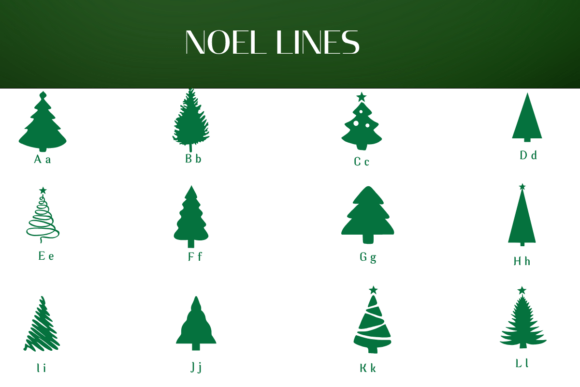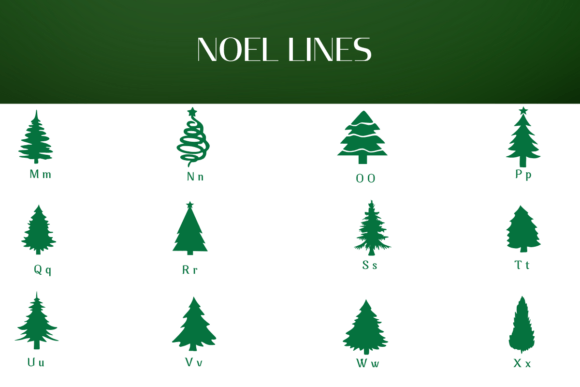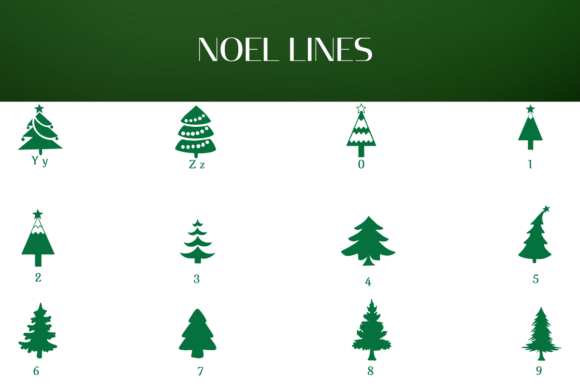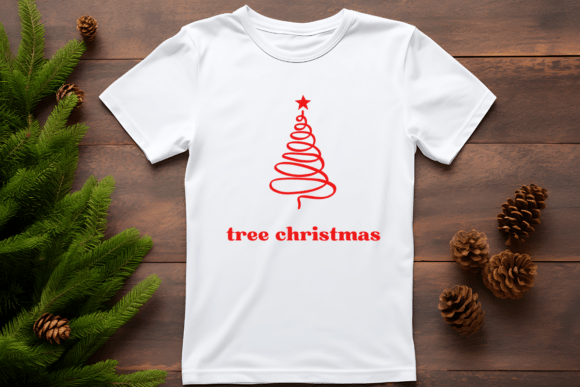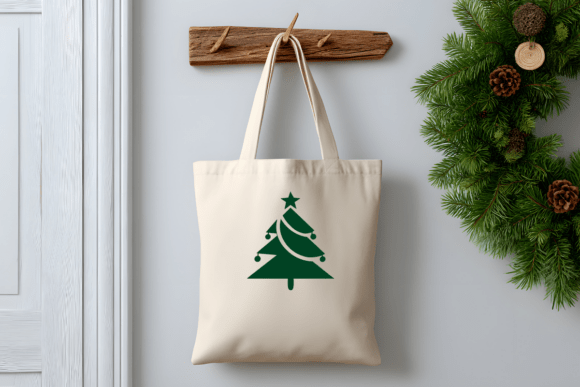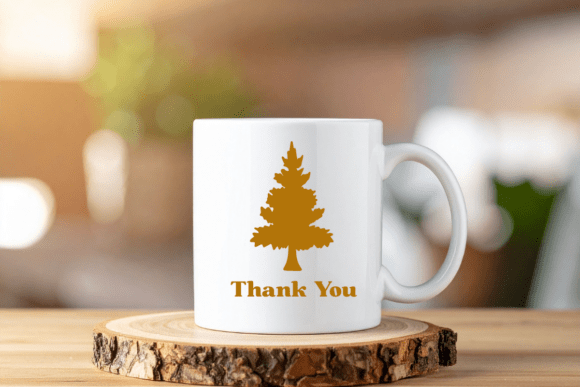
Deck the Halls with a Touch of Whimsy
As you sit down to craft your holiday cards or jot down your New Year’s resolutions, do you find yourself searching for the perfect font to capture the festive spirit? Perhaps you’re a designer looking to add a touch of whimsy to your latest project. Whatever your creative pursuit, the Christmas Pine Font is here to inspire you.
This delightful dingbats font is perfect for taking notes, writing a diary, or making greeting cards. But its uses don’t stop there – you can also use it to create banners, content, mugs, cards, shirts, stationery, social media posts, and more!
As a designer, you know that the right font can make all the difference. The Christmas Pine Font is a valuable addition to your toolkit, offering a unique and playful way to express your creativity and connect with your audience.
Christmas Pine Font Key Features
- Font Family: Christmas Pine is a festive and playful font designed to evoke the feeling of Christmas trees.
- Character Count: This font contains a wide range of characters, including uppercase and lowercase letters, numbers, and punctuation marks.
- Unique Characteristics: Features a unique, hand-drawn design with intricate details and ornaments that resemble Christmas pinecones and branches.
Designer Review: Christmas Pine Font
Overall, I’d say the Christmas Pine Font has some great qualities that make it a fun addition to your holiday design projects. ✨
- Unique blend of vintage and modern elements, giving it a charming, eclectic feel.
- Great for creating festive and inviting designs, perfect for holiday cards, gift tags, or advertisements.
- Font is highly customizable, allowing you to adjust the color, size, and style to fit your design needs.
- Includes a wide range of characters, including uppercase and lowercase letters, numbers, and symbols.
However, there are some limitations that might hold you back. ⚠️
- Some characters may not be as intricately designed as others, resulting in a slightly uneven look.
- The font may not be as suitable for formal or professional designs, as it has a more playful and whimsical feel.
Overall, I’d give the Christmas Pine Font 4 out of 5 stars. It’s a great addition to any holiday design project, but be aware of its limitations and use it accordingly.
To get the most out of the Christmas Pine Font, use it in conjunction with other festive graphics and elements, such as holly leaves, snowflakes, or candy canes.
– Holiday greeting cards and invitations
– Social media graphics and ads
– Custom gift tags and wrapping paper
– Holiday-themed presentations and reports